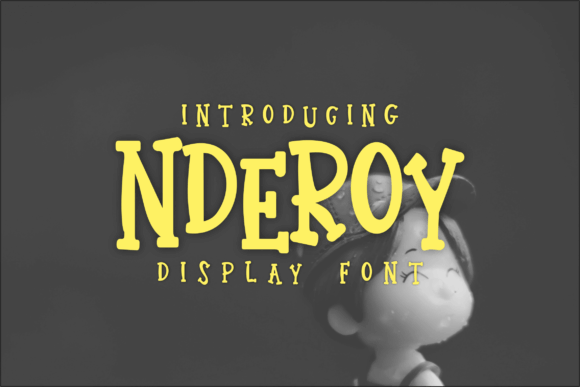
Behold, the enchanting Nderoy font—a stroke of graphic brilliance that radiates exclusivity and beckons you to create visual wonders. Crafted by the skilled hands of emprit.graphic, this captivating font family redefines the realm of display typography, presenting an array of captivating characters that dance and twirl, inviting you to unleash your creative spirit.
Lose yourself in the whimsical charm of Nderoy, a font that whispers tales of playful innocence and heartwarming moments. Picture it gracing the pages of children's books, bringing beloved stories to life with its playful and endearing curves. Witness the joy it brings as it adorns invitations to birthday parties, baby showers, and other joyous occasions, spreading happiness wherever it goes.
But Nderoy's allure extends far beyond the realm of childhood and merriment. Its versatility knows no bounds, as it effortlessly transitions into the world of fashion and design. Imagine your creations adorned with the intricate details of Nderoy, captivating the eye with its unique charm. From t-shirts and hoodies to coffee mugs and tote bags, Nderoy adds a touch of whimsy and distinction, setting your designs apart from the ordinary.
Unleash the magic of Nderoy this Halloween, Christmas, and New Year. Let your festive designs radiate with its enchanting aura, creating an unforgettable ambiance that captures the spirit of each occasion. Nderoy's playful nature lends itself perfectly to holiday-themed invitations, greeting cards, and decorations, infusing your celebrations with a touch of magic and cheer.
With Nderoy, the possibilities are endless. Its versatility and charm make it the perfect choice for personal projects and professional endeavors alike. Embrace the allure of this extraordinary font and watch as your creative visions come to life in stunning and unexpected ways.